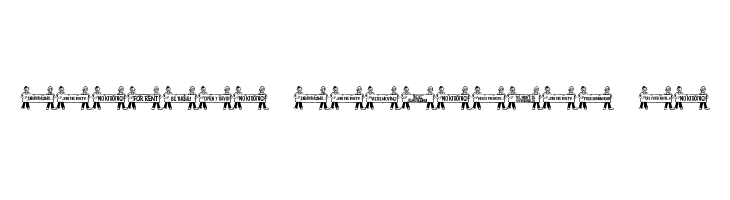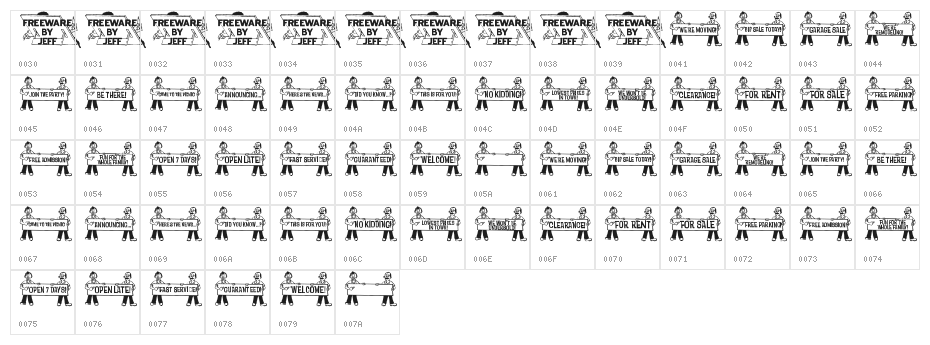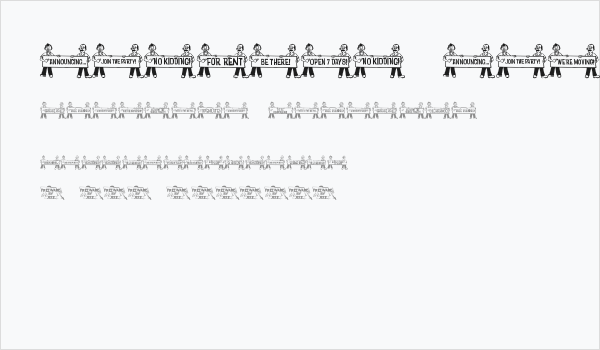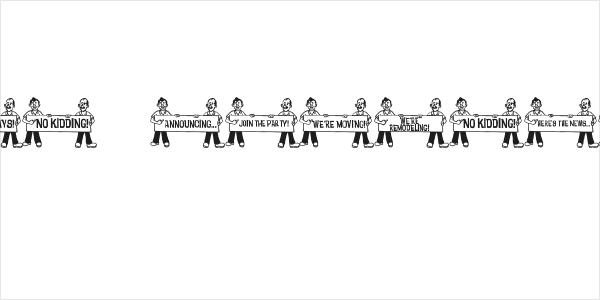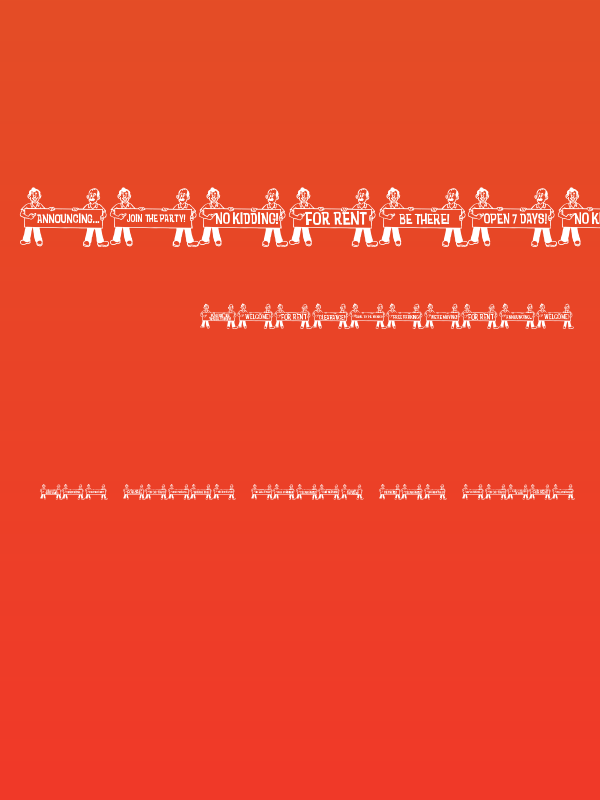
Helpful Headlines JL Font
Helpful Headlines JL Description
This is a decorative and playful font featuring cartoonish characters holding banners with text. Each character is uniquely designed, adding a whimsical and humorous touch to the overall appearance. The font is highly stylized, with each letter or word being part of a larger illustration. This makes it ideal for creating eye-catching headlines or themed designs. The characters are detailed and expressive, contributing to a lively and engaging visual experience. The font is not suitable for body text due to its intricate design but excels in making bold statements.
| Proposed Projects | Ideal for children's book covers, party invitations, playful posters, and themed event signage. |